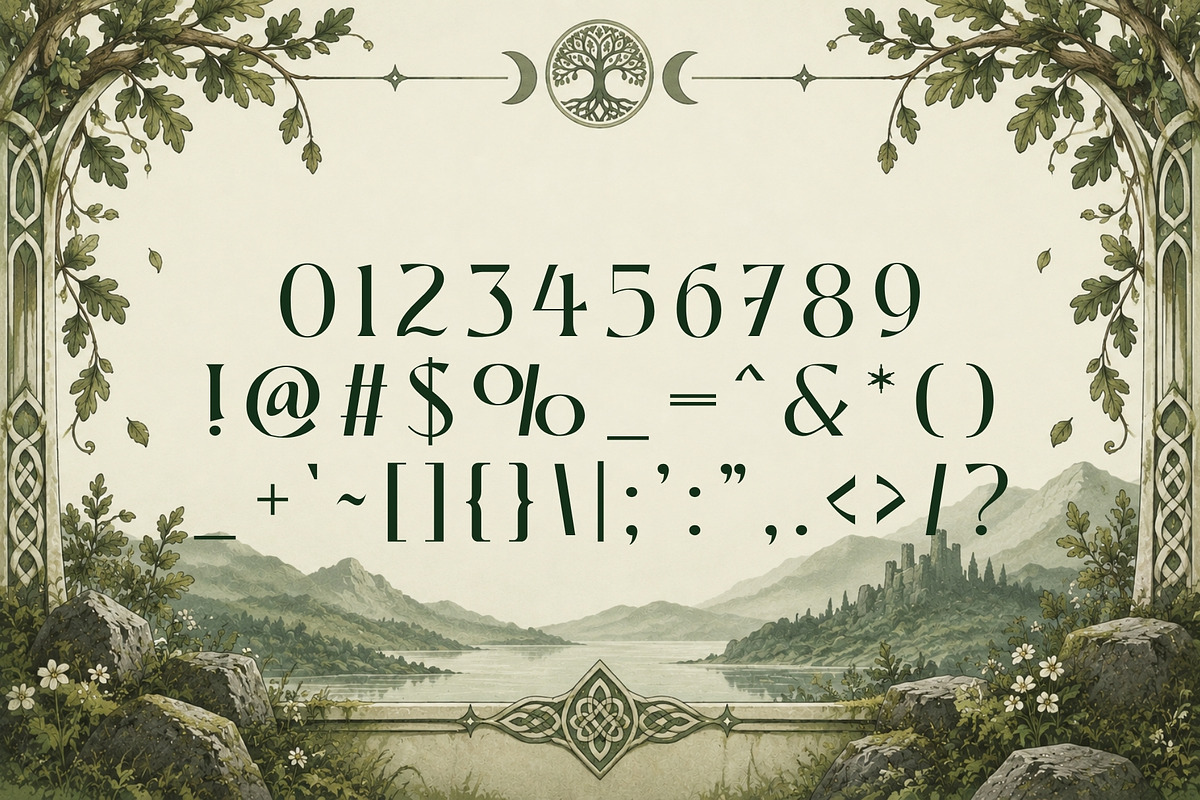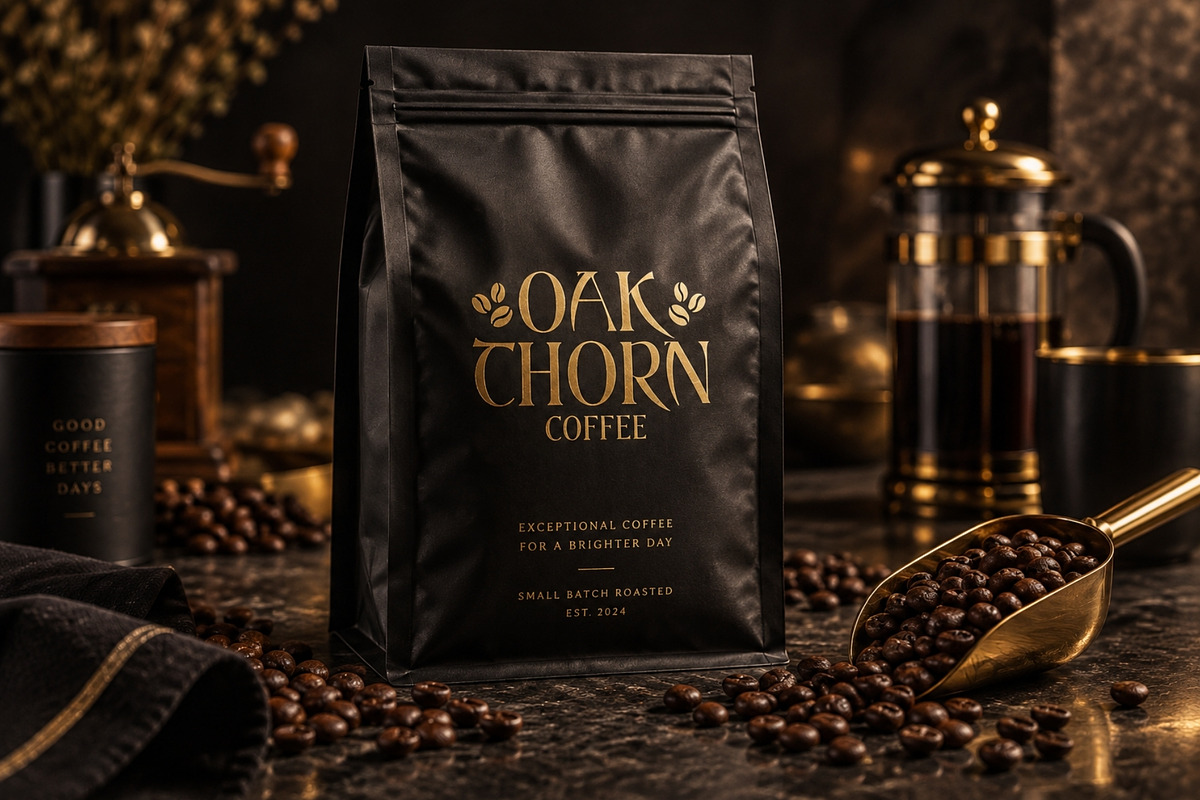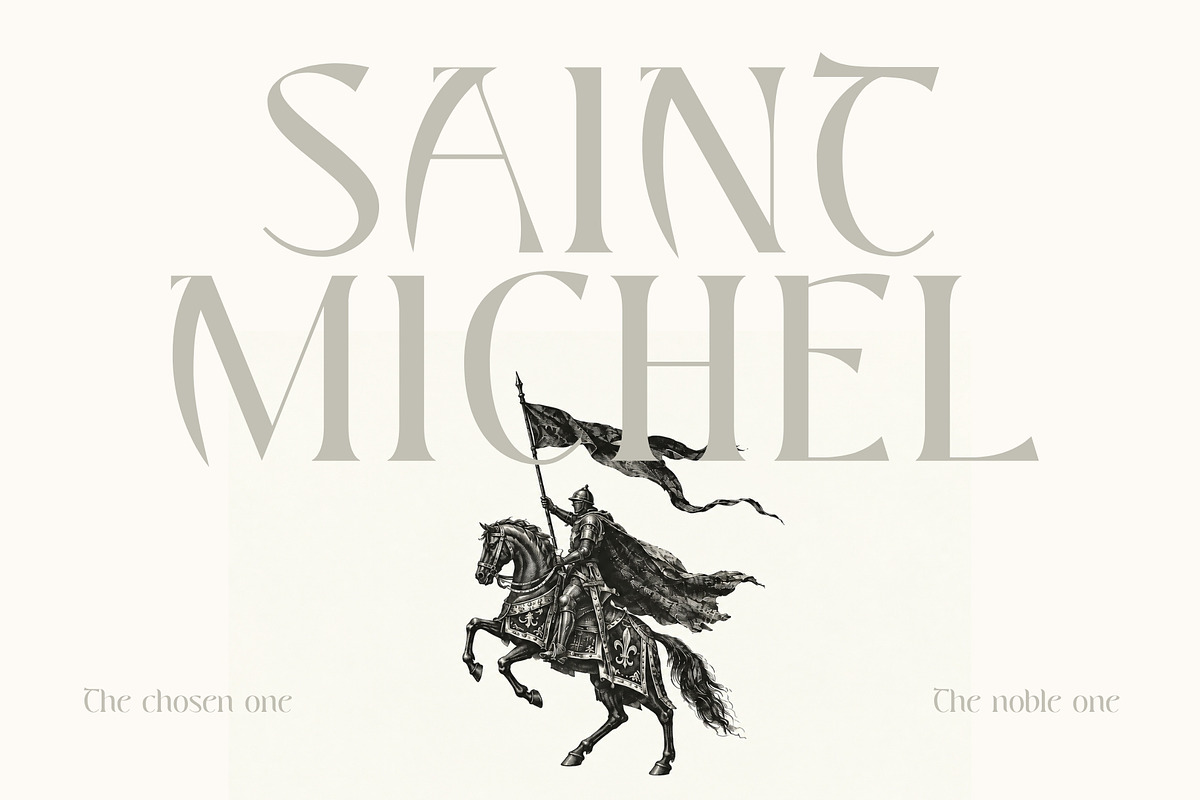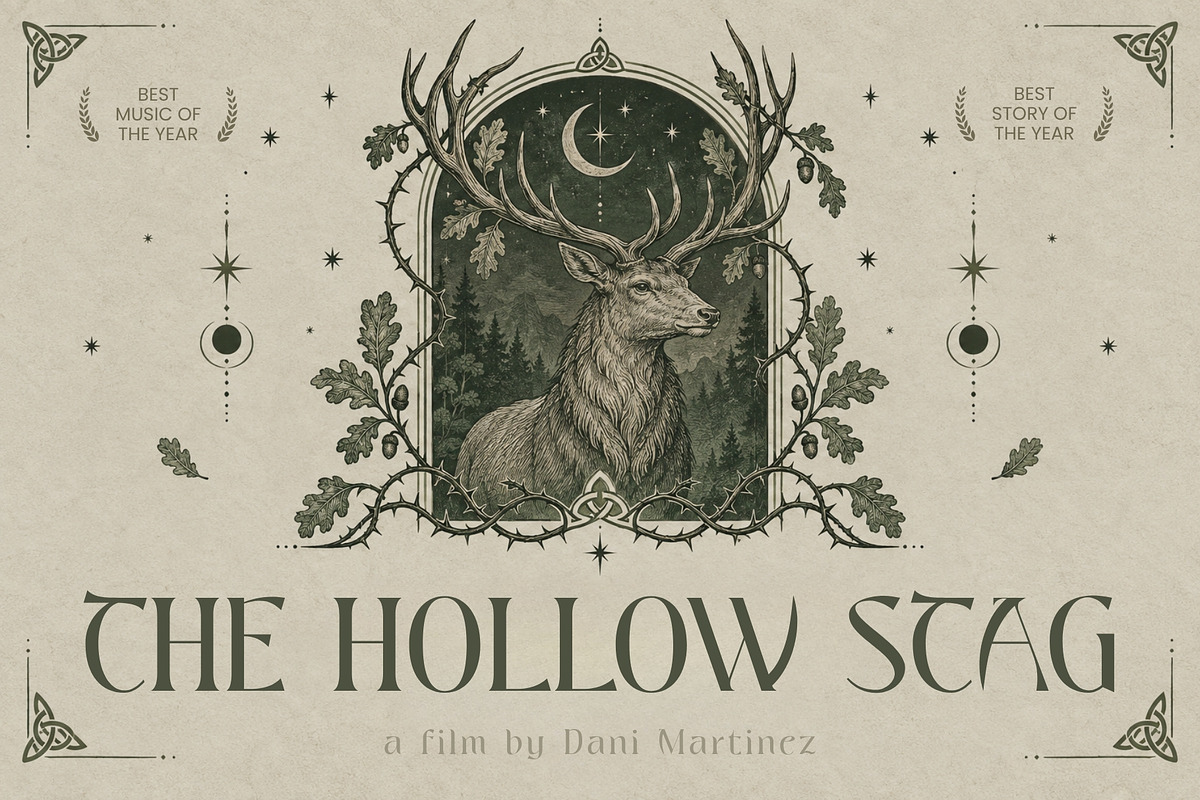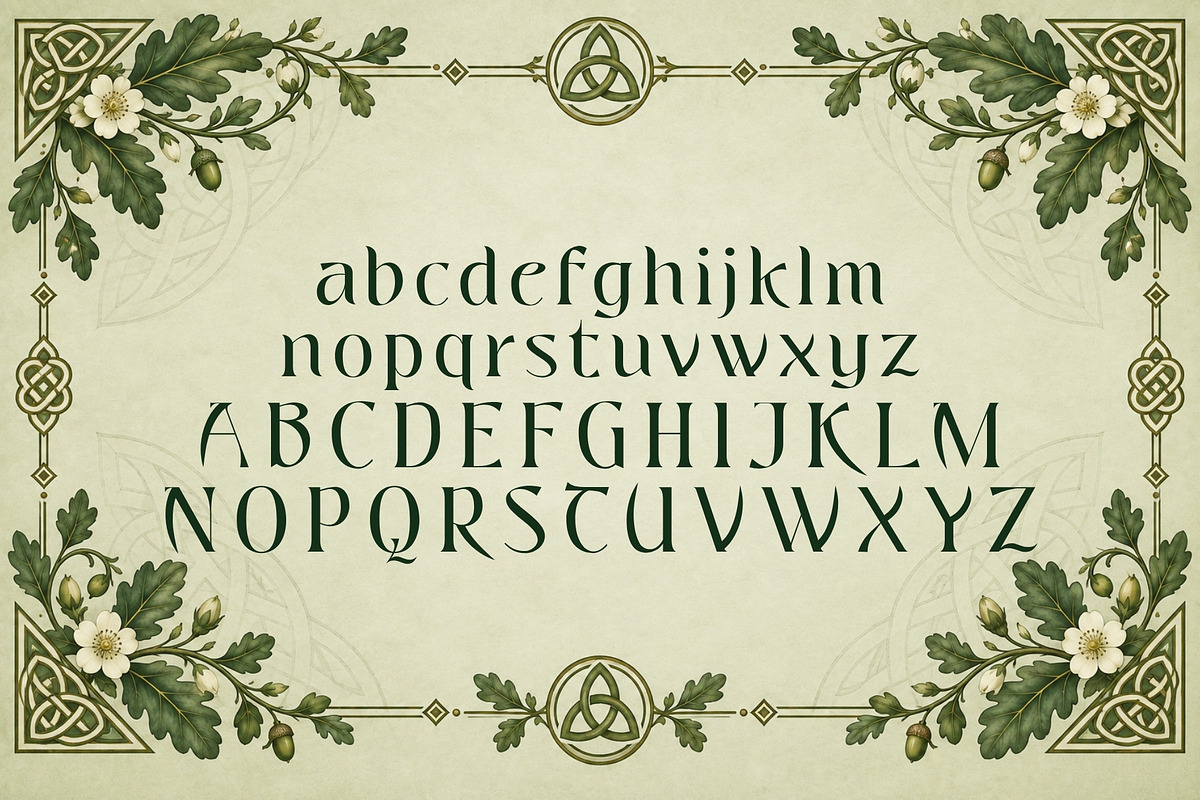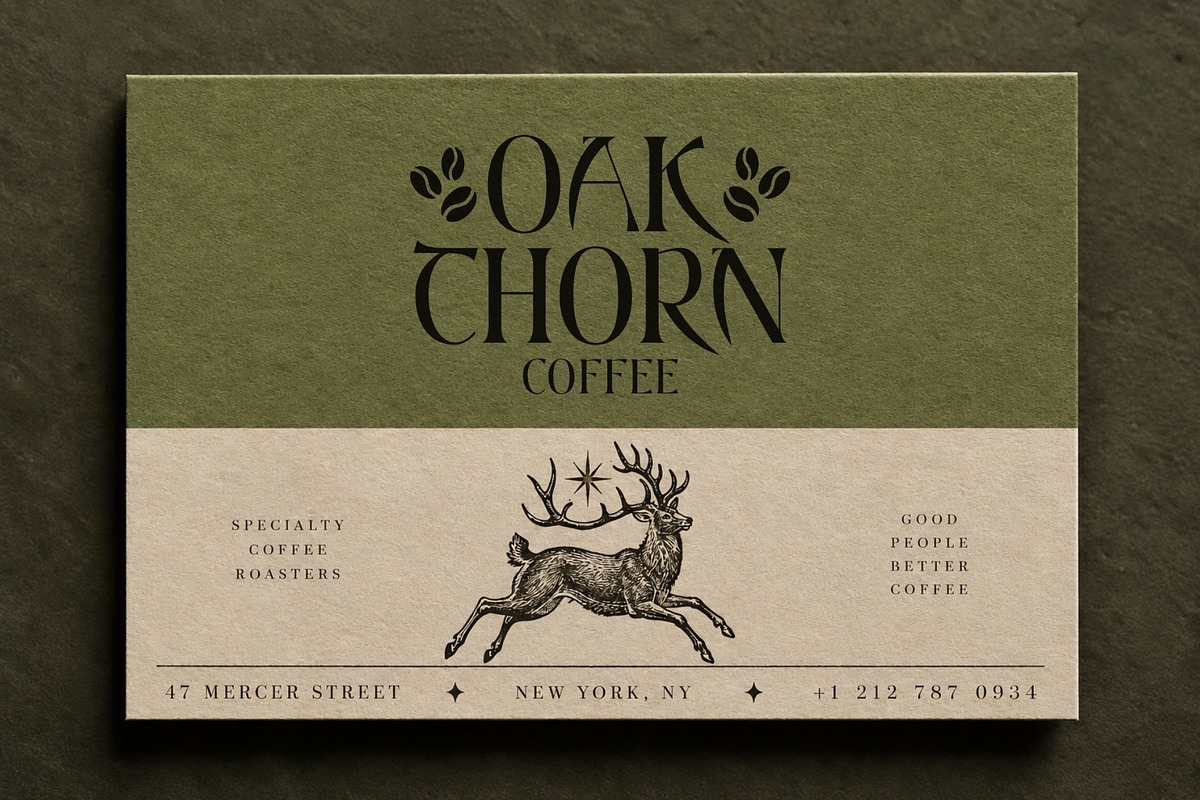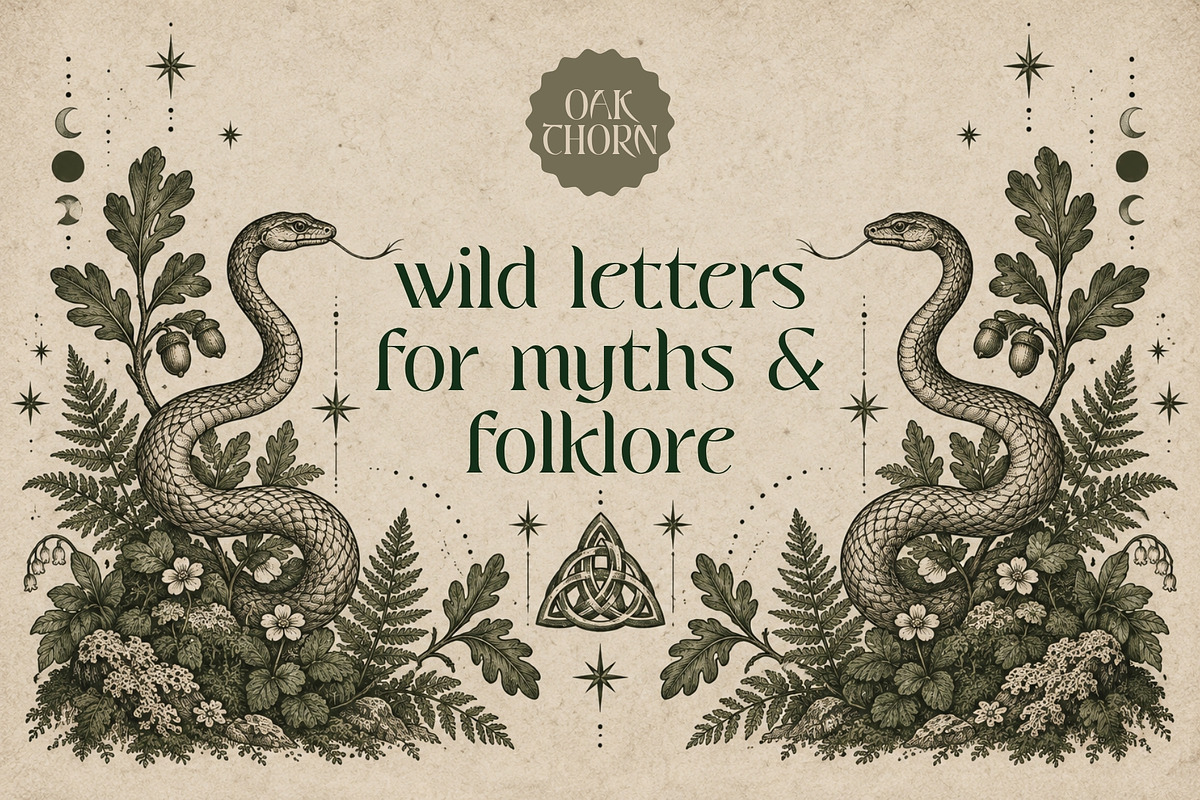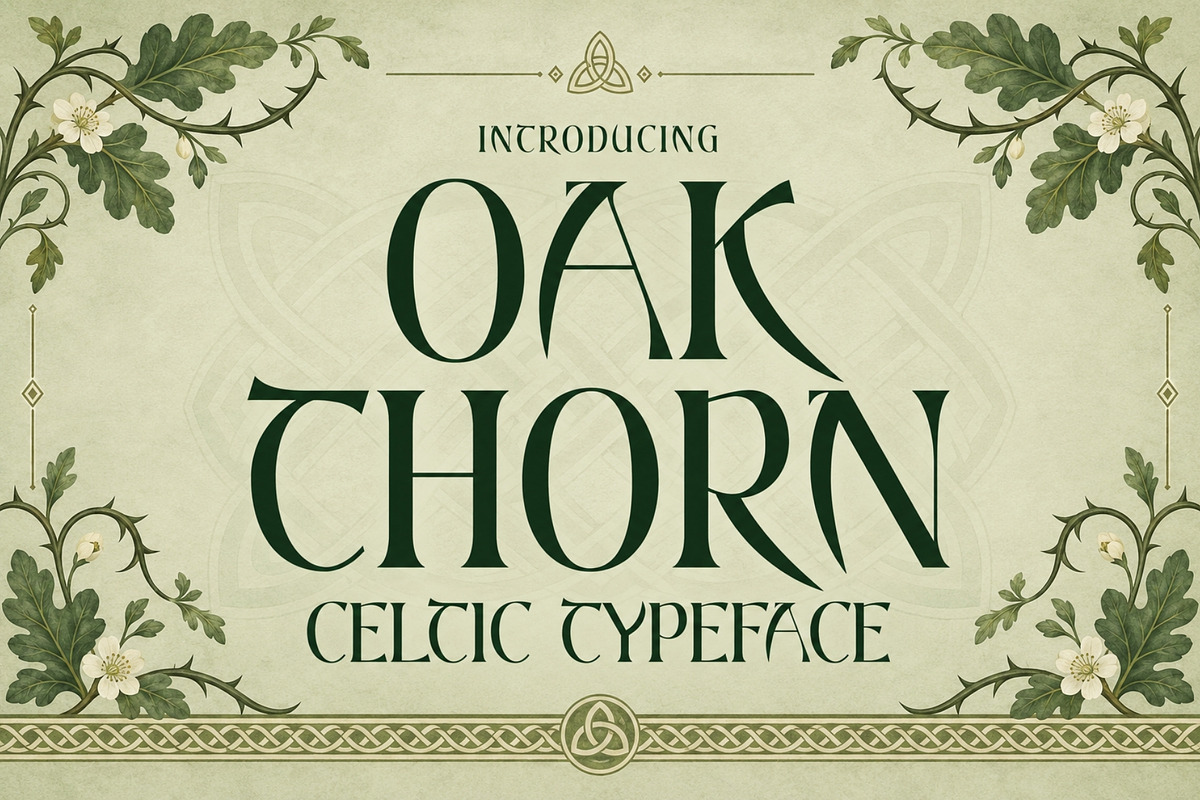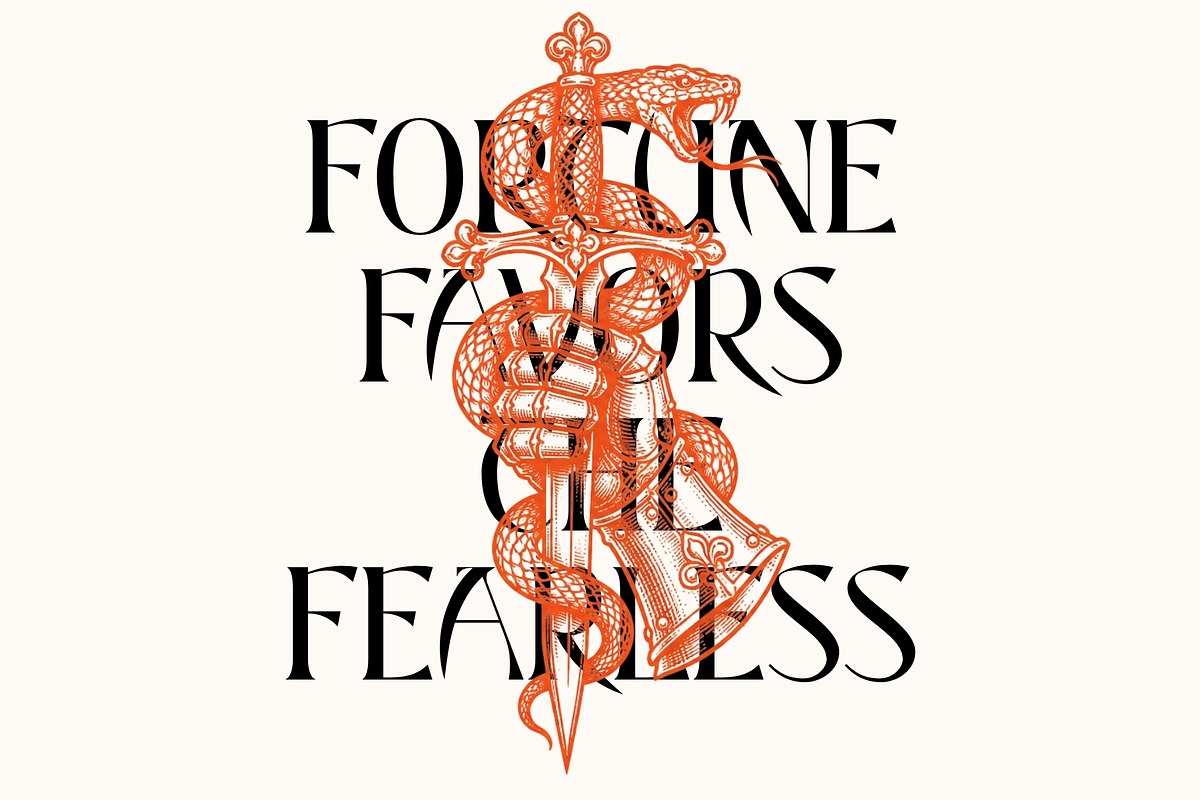
Oakthorn - Historical Celtic Type
Oakthorn is a bold, historically inspired display font rooted in the visual spirit of ancient Norse culture, early Celtic manuscripts, sacred texts, medieval ornamentation, and traditional insular art.
Its strong, intricate letterforms echo the craftsmanship and symbolism associated with early medieval Europe, drawing inspiration from the artistic traditions that flourished across Ireland, Scotland, Britain, and the wider Norse world from roughly the 6th and 7th centuries onward. The result is a typeface that feels powerful, ceremonial, mysterious, and deeply connected to the atmosphere of old legends and forgotten kingdoms.
Oakthorn combines the rugged strength of Viking-inspired design with the decorative rhythm of Celtic manuscript lettering. Its distinctive strokes give every word an instantly recognizable character, making it especially effective when you want typography to feel ancient without becoming difficult to use.
Perfect for fantasy branding, medieval posters, book covers, game titles, historical projects, Viking-inspired logos, Celtic artwork, fantasy maps, packaging, apparel, tattoos, album covers, invitations, merchandise, film graphics, role-playing games, and mythological themes, Oakthorn brings a sense of heritage and drama to both digital and printed work.
Whether you're building the identity of a fictional kingdom, designing artwork inspired by sagas and folklore, or simply looking for a typeface with a timeless historic presence, Oakthorn gives your text the strength of Norse tradition and the ornate soul of the Celtic world.
Carved from legend. Built for timeless stories.